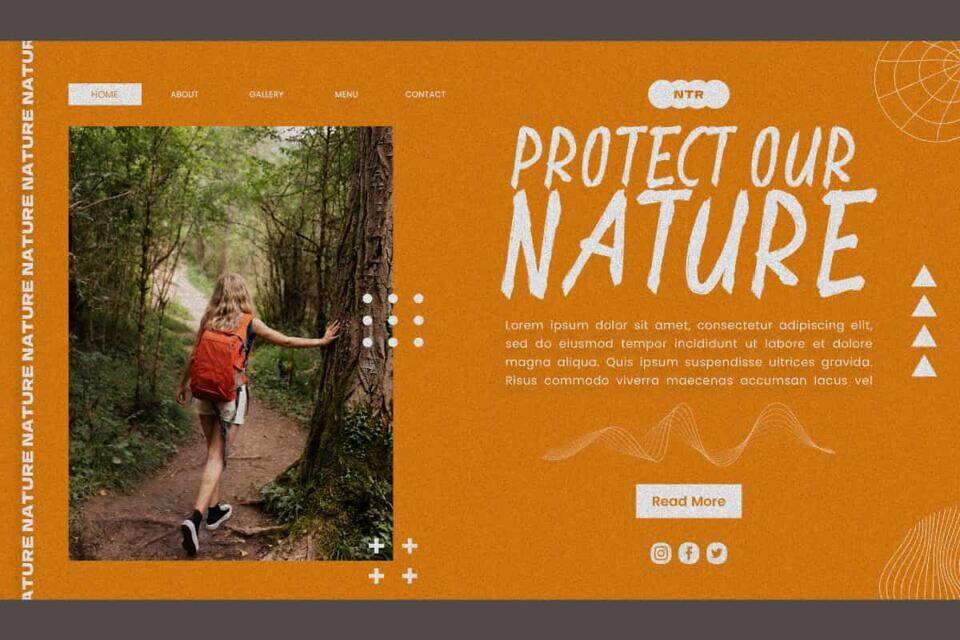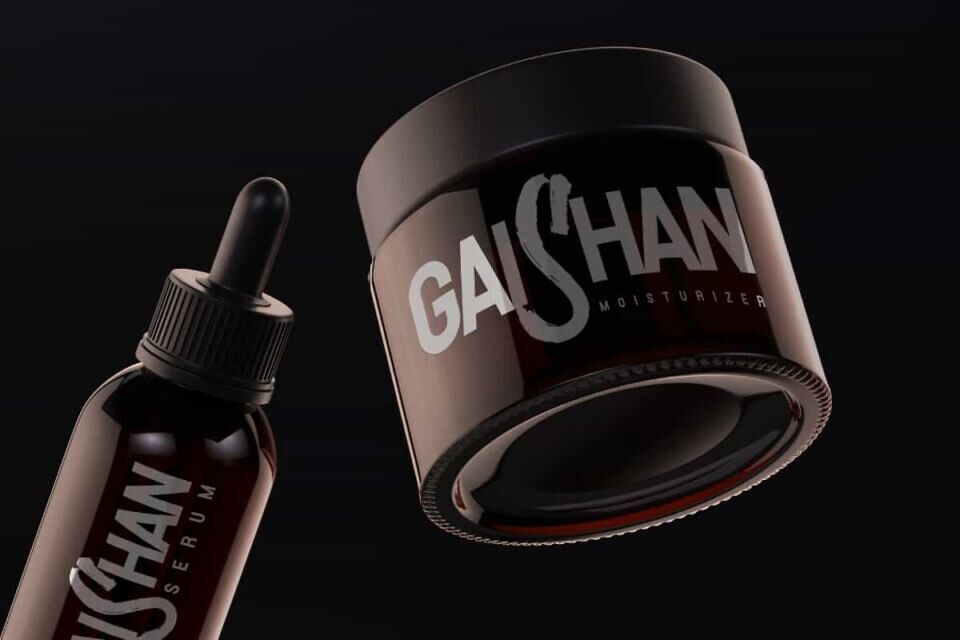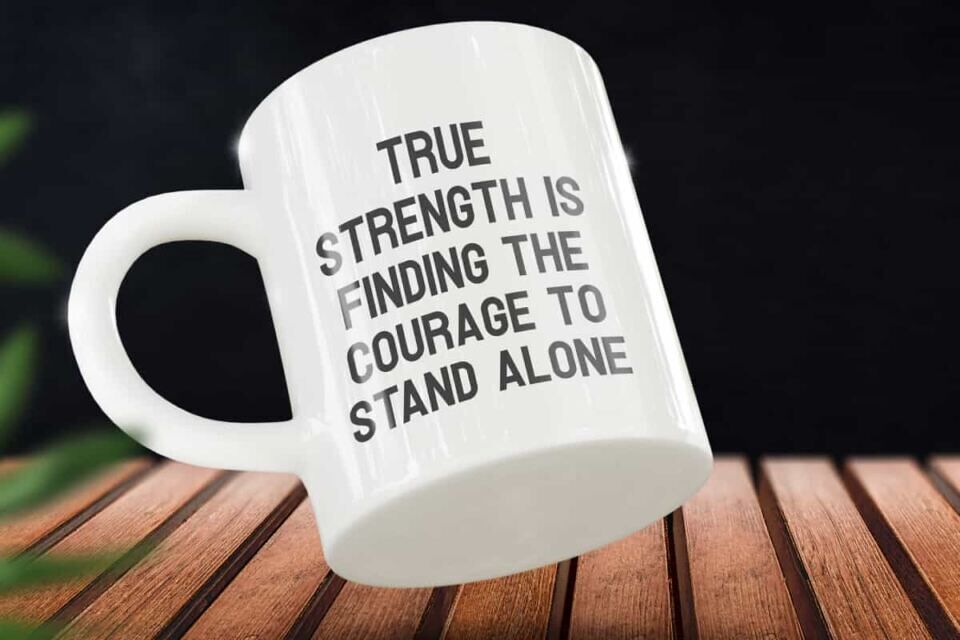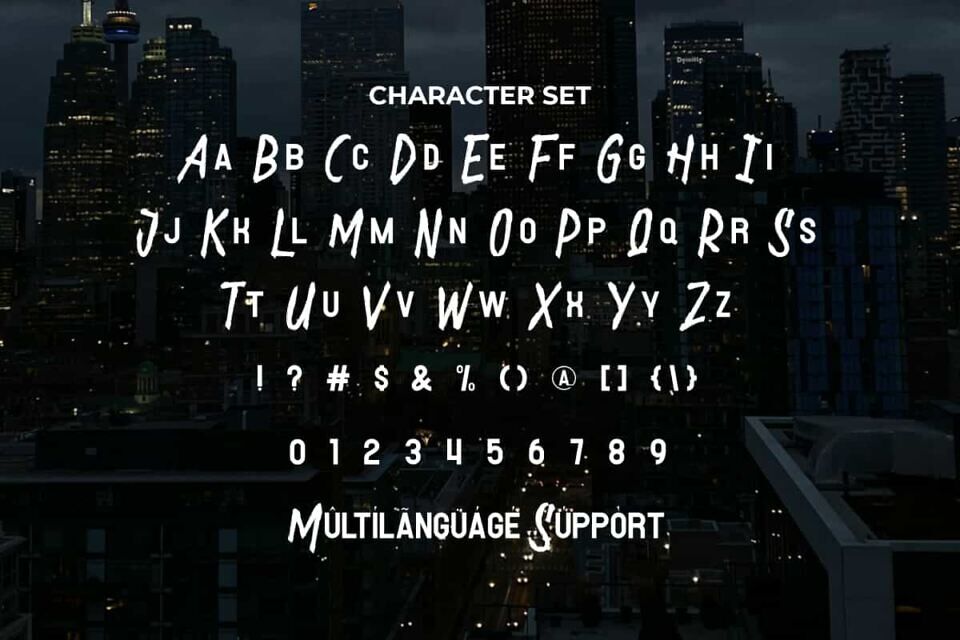
Hero Jackhem Font
Hero Jackhem Font is a dual styles font from NoahType. This font is a combination of San Serif with a brush-style font that looks bold. This font will be suitable for a lot of projects, such as stationery, custom design, banner, website, label, poster, signage, catalog, cover, quotes, and more!
Hero Jackhem Font includes full set of Uppercase and Lowercase Basic Characters, Numerals and Punctuation. This font has an attractive appearance that will make you believe it is the perfect choice for many industries, such as sports, racing, game, automotive, advertisement, café, event organizer, fashion, printing, publishing, etc.
Designed by: Noah Type